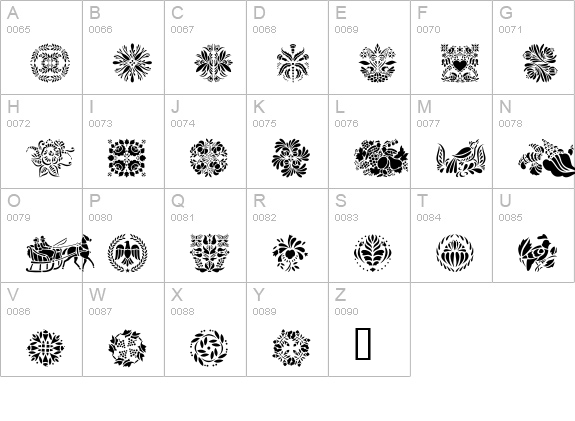
Folk Art Font Details
Folk Art font is a whimsical and charming typeface that captures the essence of traditional folk art with its handcrafted look and unique character. This delightful font is perfect for adding a touch of rustic flair to your designs, whether you're creating invitations, posters, or branding materials. The Folk Art font is freely available to download at FontsMarket.com, allowing you to easily access this versatile typeface and incorporate it into your projects without any hassle. With its playful and artistic feel, Folk Art font is sure to bring a touch of warmth and personality to any design you create. Let your creativity shine with this lovely and free-spirited font!